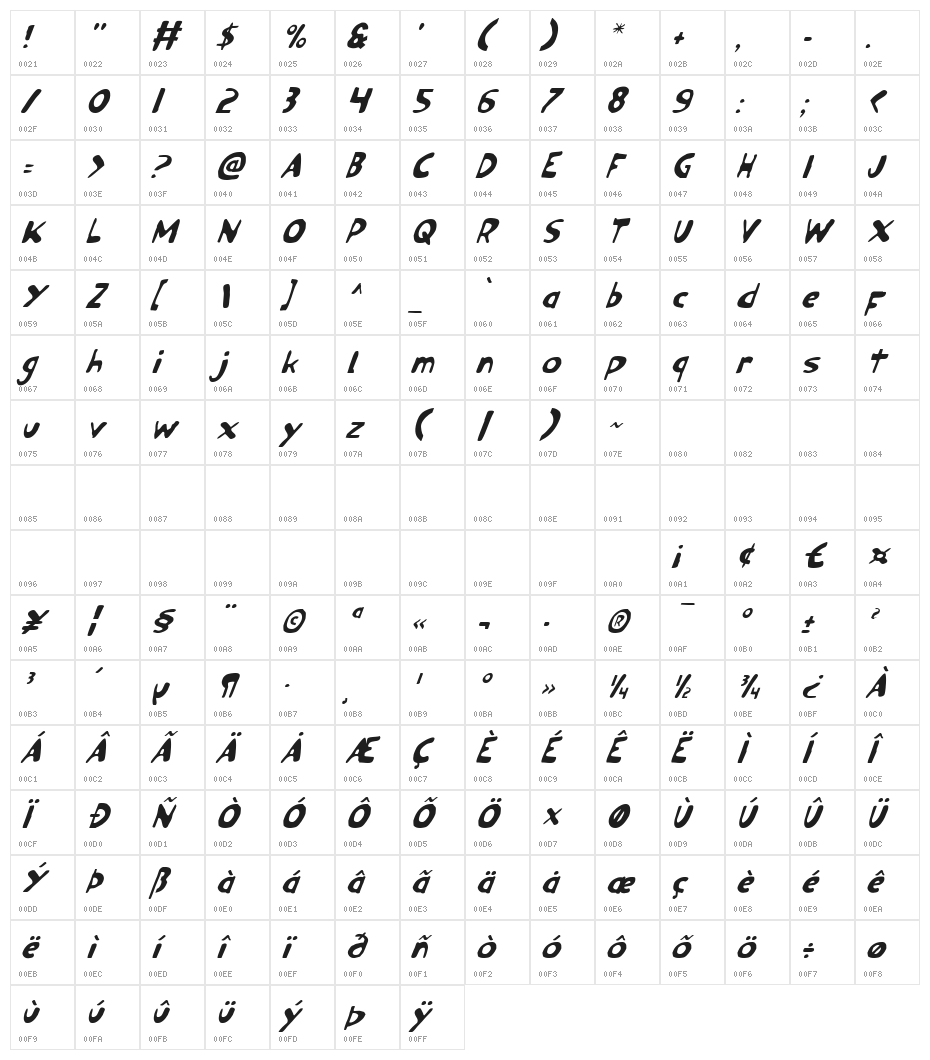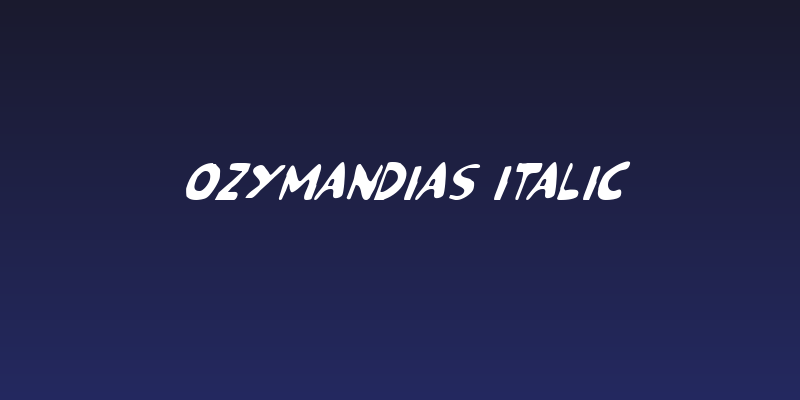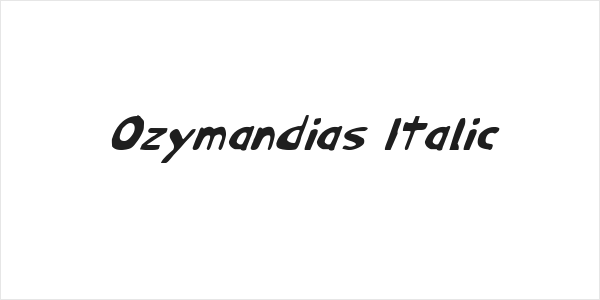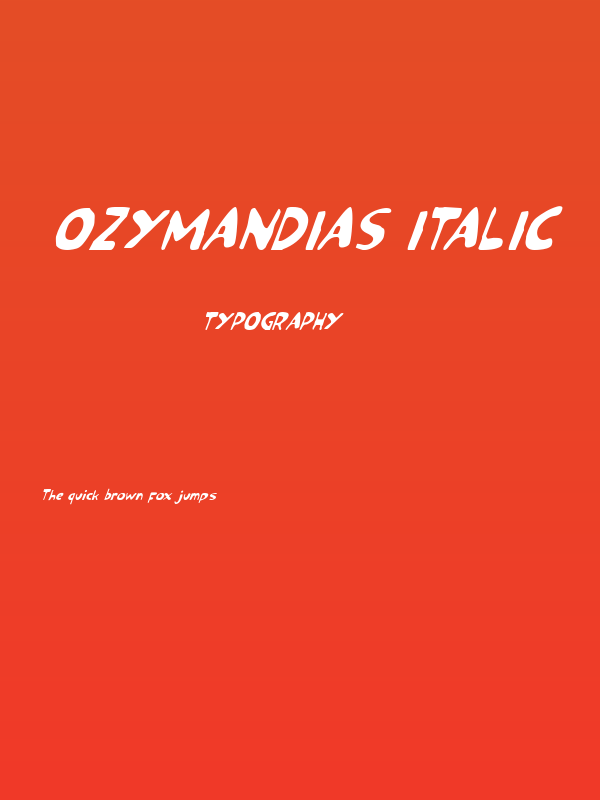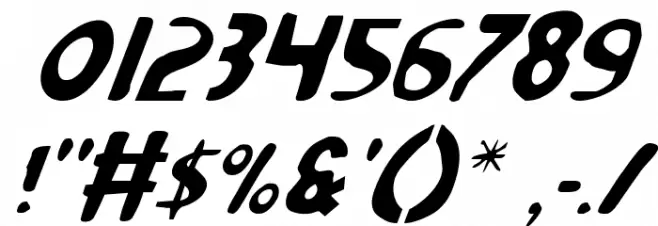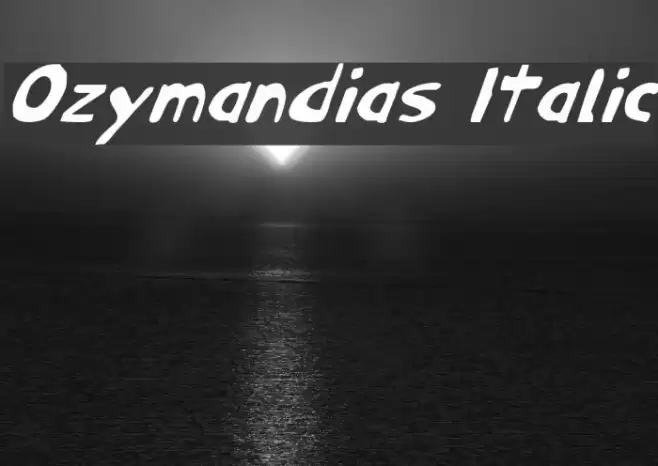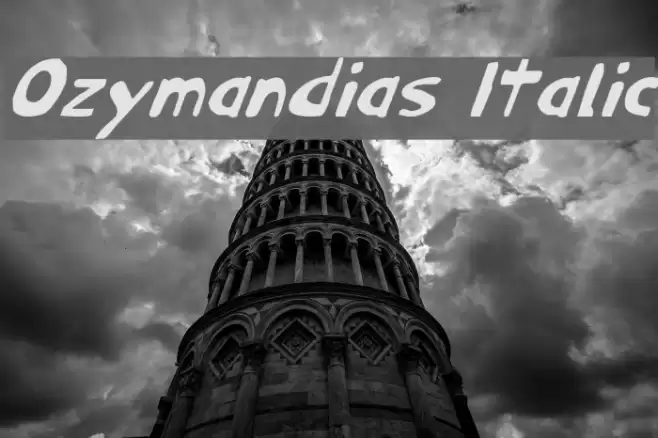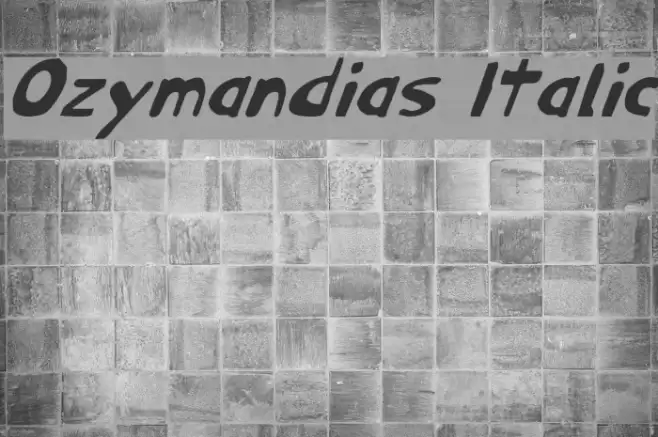
Ozymandias Italic Font
Ozymandias Italic Description
This font exhibits a bold and dynamic style with a distinct italic slant, giving it a sense of motion and energy. The characters are robust and slightly condensed, featuring a playful yet assertive design. The strokes are thick and consistent, providing a strong visual impact. The uppercase and lowercase letters maintain a cohesive look, while the numerals and special characters are crafted to match the overall aesthetic. This font's unique flair makes it suitable for creative and expressive projects.
| Proposed Projects | Ideal for branding, poster design, and creative headlines that require a bold and energetic touch. |